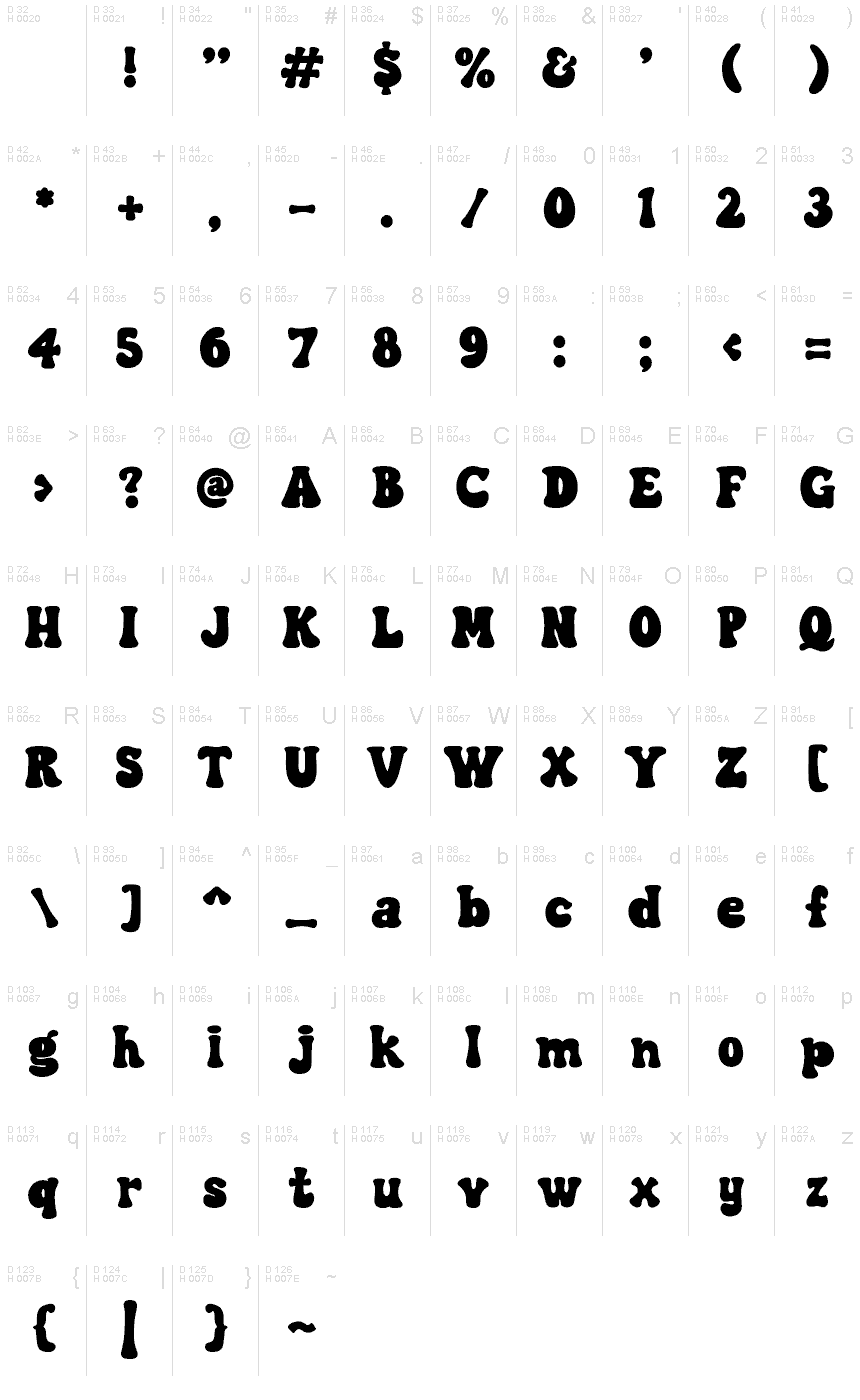
TexasSauce
Texas Sauce font is a bold display typeface designed by Muhammad Yafinuha of Masyafi Studio. Its groovy rounded forms and cohesive flow bring out a retro aesthetic with a playful side. Additionally, the font features a whimsical touch for a friendly personality which readers can immediately pick on in both small texts or large posters.
Fans of the 60s and 70’s vintage era are going to enjoy using Texas Sauce for packaging, logos, labels, signage, T-shirt designs, magazine covers or album covers. Let your digital websites experience get redefined with headers in this exceptional free display font! Posters and advertisements are other possible ideas with places to see Texas Sauce come to life.